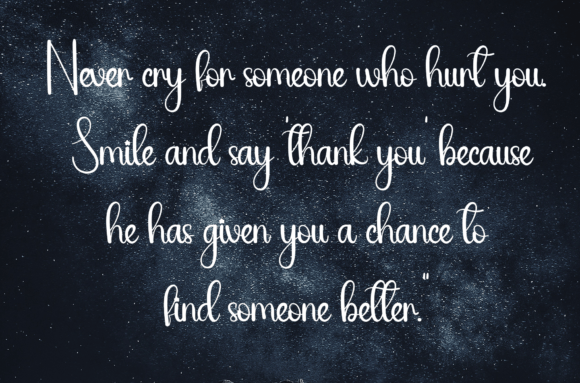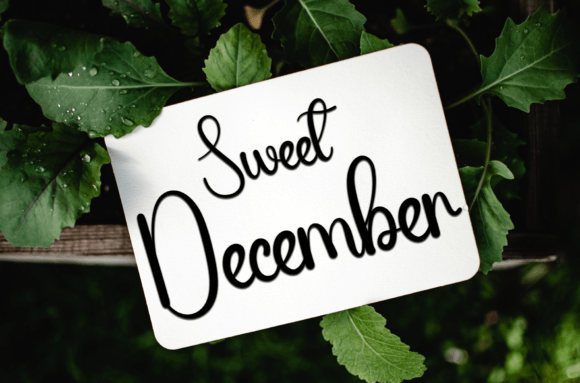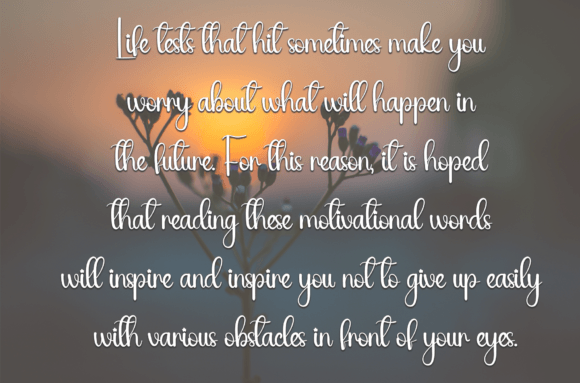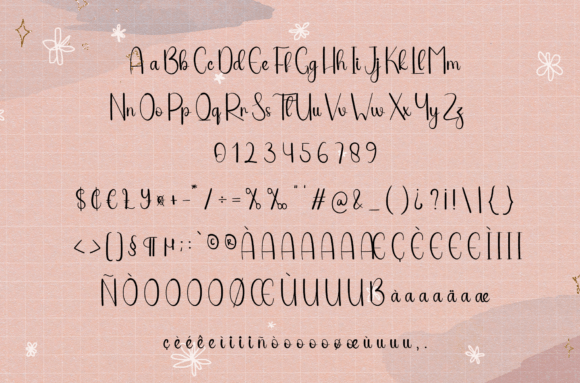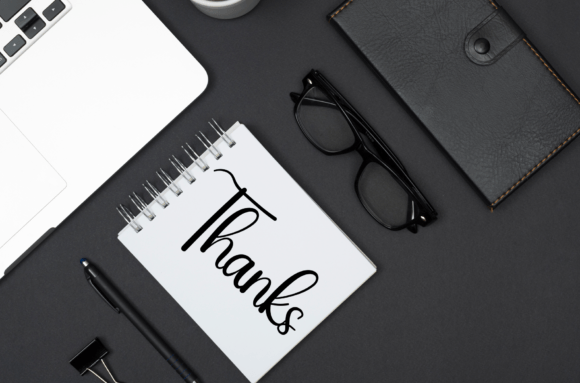
About Sunflower Signature Font
Sunflower Signature font is a simple and friendly handwritten script designed to add warmth and personality to your creative projects. Its clean and approachable style makes it a versatile choice for a variety of occasions, whether you’re working on crafts, digital designs, presentations, or greeting cards.
Simple and Friendly Handwritten Style
The Sunflower Signature fon features smooth, flowing strokes with a natural handwritten feel. Its balanced and clear letterforms create a warm and inviting atmosphere, making it perfect for both casual and professional uses.
Ideal Uses for Sunflower Signature Font
This versatile font works well for:
Craft projects and DIY designs
Digital and print presentations
Greeting cards and invitations
Branding and social media graphics
Personal notes and creative layouts
Use Sunflower Signature font to bring a personal and friendly touch to your designs.
Why Choose Sunflower Signature Font?
Designers appreciate Sunflower Signature for its:
Simple and friendly handwritten style
Readable and elegant letterforms
Flexibility across various design applications
Add Warmth and Charm to Your Designs
Typography plays a vital role in conveying the mood of your project. The Sunflower Signature fon adds a gentle and inviting vibe, helping your designs feel more personal and engaging. It’s perfect for projects that require a heartfelt and approachable look.
Final Thoughts on Sunflower Signature Font
In summary, Sunflower Signature fon is a simple and friendly handwritten script ideal for designers looking for a versatile and warm fon. Add Sunflower Signature to your collection to create charming and memorable designs.